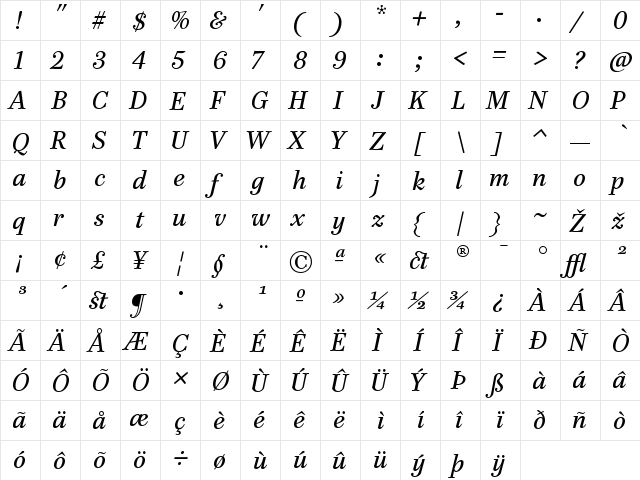
PB12TTP-ItalicLF Regular
Design Context for PB12TTP-ItalicLF Typeface
PB12TTP-ItalicLF offers clean, dependable letterforms without strong stylistic allegiance, making it a practical choice for designers who need flexibility. The dynamic lean of this cut emphasises speed and emphasis in any layout.
Pro Tip: Try PB12TTP-ItalicLF for annotation and caption copy alongside an upright companion — the contrast in angle creates a dynamic but ordered typographic system.